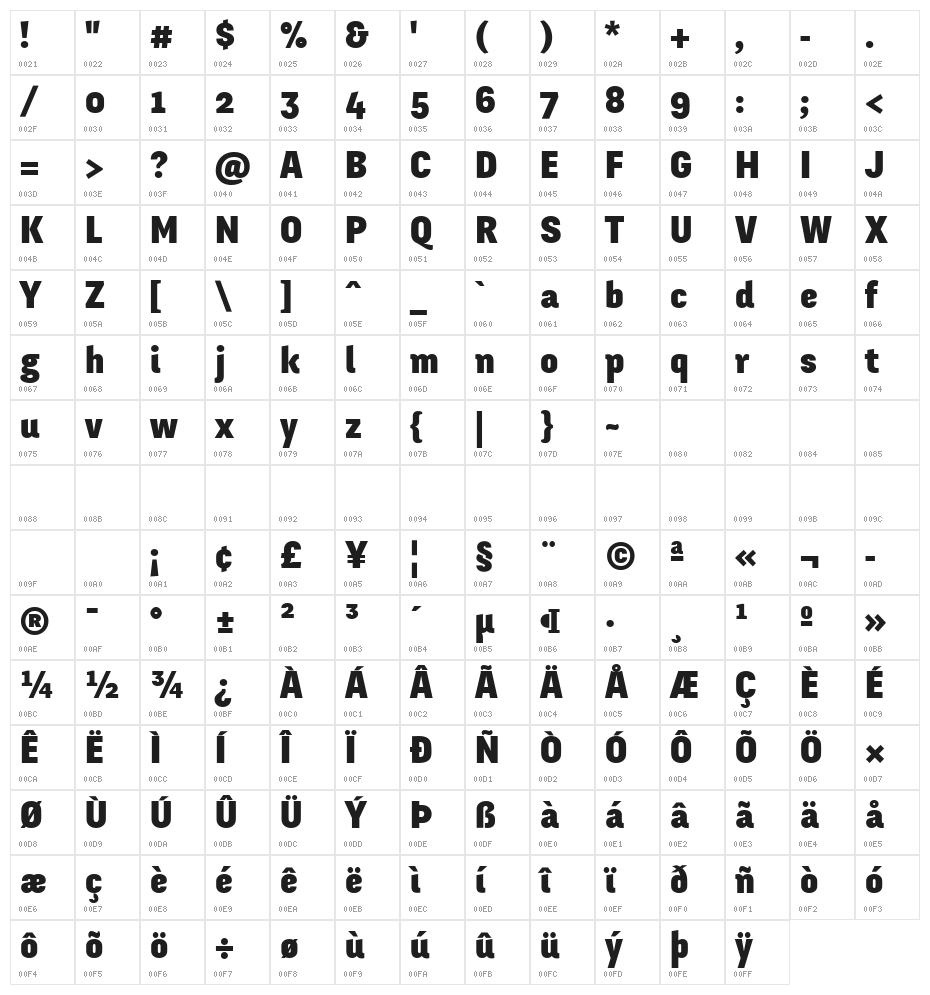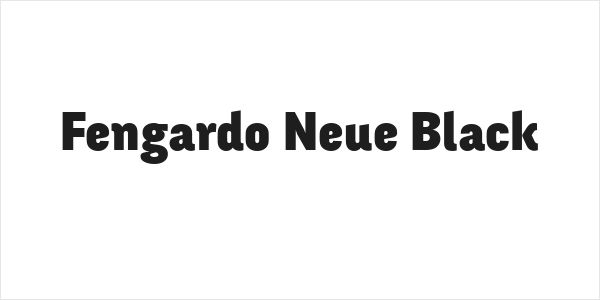
Fengardo Neue Black Font
Fengardo Neue Black Description
This font features a bold and assertive style with strong, thick strokes that convey a sense of power and impact. The uppercase letters are particularly striking, with a uniform height and width that create a cohesive and balanced appearance. The lowercase letters maintain a similar boldness, ensuring readability while adding a touch of modernity. The numerals are equally robust, making them stand out in any context. Special characters are designed with the same attention to detail, ensuring they integrate seamlessly with the rest of the font. Overall, this font is ideal for making a statement, whether in headlines, logos, or other prominent text applications.